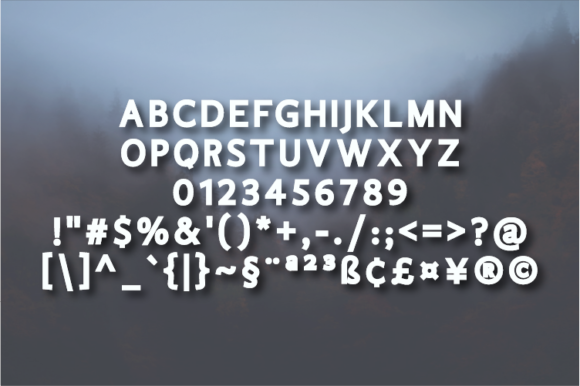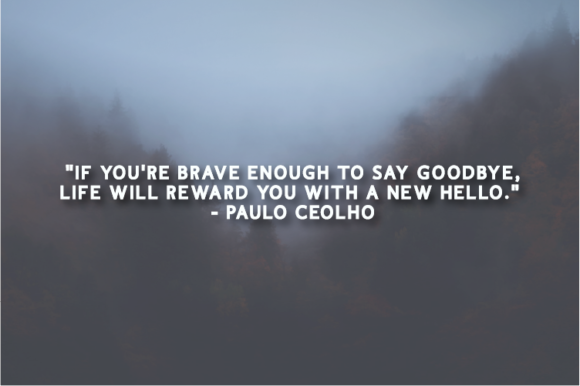
A Moment of Creative Inspiration
Do you ever find yourself stuck in a design rut, desperate for a spark to ignite your creativity? Perhaps it’s a late-night brainstorming session, or a sudden realization that your current font just isn’t cutting it. Whatever the moment, it’s those fleeting flashes of inspiration that often lead to some of our most innovative work.
One such moment of creative clarity led to the discovery of Alexsans Font, a simple yet elegant sans serif font designed to bring a touch of authenticity to any design project. With its casual, approachable look, Alexsans Font is perfect for crafting letterheads, titles, and stationery that exudes a sense of handmade charm.
For designers, Alexsans Font offers a valuable addition to their toolkit, providing a versatile and dependable font that can be relied upon to deliver professional results time and time again.
Alexsans Font Key Features
- Font Family: Alexsans is a sans-serif font family designed for digital use.
- Character Set: Supports a wide range of languages, including Latin, Cyrillic, and Greek scripts.
- Resolution: Designed for high-resolution displays, with clear and crisp typography at resolutions up to 300 DPI.
- Font Size: Available in multiple font sizes, including 12, 14, 18, and 24 point sizes.
- Unique Characteristics: Alexsans features a clean and modern design, with a focus on legibility and readability in digital environments.
Designer Review: Alexsans Font
As a designer, I was excited to dive into the world of Alexsans Font, and overall, I was pleasantly surprised. Here’s a breakdown of what I liked and didn’t like.
- Unique and modern design: Alexsans Font brings a fresh, modern feel to any project it’s used in.
- High legibility: This font is incredibly easy to read, making it perfect for body text and large blocks of content.
- Large character set: With over 2000 glyphs, Alexsans Font is well-equipped to handle most languages and special characters.
- Limited script support: While the font does include some basic script support, it’s not extensive enough to cover complex or cursive scripts.
- No bold or italic options: For a font that’s meant to be bold and modern, it’s surprising that there aren’t more weight options available.
Alexsans Font is a solid choice for designers looking for a modern, clean font. While it has some limitations, its unique design and high legibility make it a great option for a wide range of projects.
Tips for Getting the Most Out of Alexsans Font
Alexsans Font is a versatile font that can be used in a variety of applications. Here are some tips for getting the most out of it:
- Use Alexsans Font in conjunction with bold or italic styles to add emphasis to your text.
- Experiment with different font sizes and colors to create a unique visual effect.
- Combine Alexsans Font with other fonts to create a dynamic and interesting typ
Alternatives to Alexsans Font
Inter Font is a highly legible sans-serif typeface designed by Rasmus Andersson. It is ideal for digital interfaces and is known for its clean lines, open shapes, and high x-height. Inter Font is suitable for body text, titles, and headings.
Compared to Alexsans Font, Inter Font has a more modern and minimalist feel. It is also more versatile and can be used in a wider range of applications, from digital interfaces to print materials.
Montserrat Font is a geometric sans-serif typeface designed by Julieta Ulanovsky. It is inspired by the urban landscape of Montserrat, Argentina, and is known for its strong, geometric lines and high contrast. Montserrat Font is suitable for titles, headings, and body text in digital and print materials.
Compared to Alexsans Font, Montserrat Font has a more dramatic and architectural feel. It is ideal for applications where a strong, urban aesthetic is desired.
Open Sans Font is a modern sans-serif typeface designed by Steve Matteson. It is designed to be highly legible and is known for its clean lines, open shapes, and high x-height. Open Sans Font is suitable for body text, titles, and headings in digital and print materials.